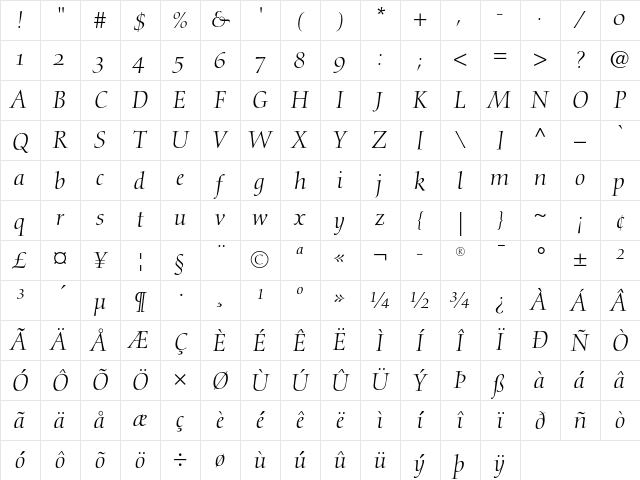
Diotima is a composed and adaptable typeface that performs quietly and consistently across a wide range of design contexts. The slanted form adds forward momentum and visual energy.